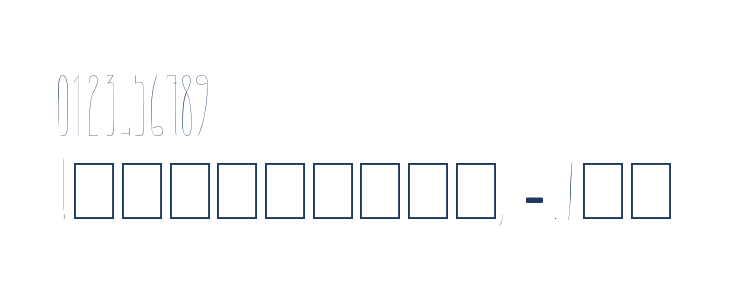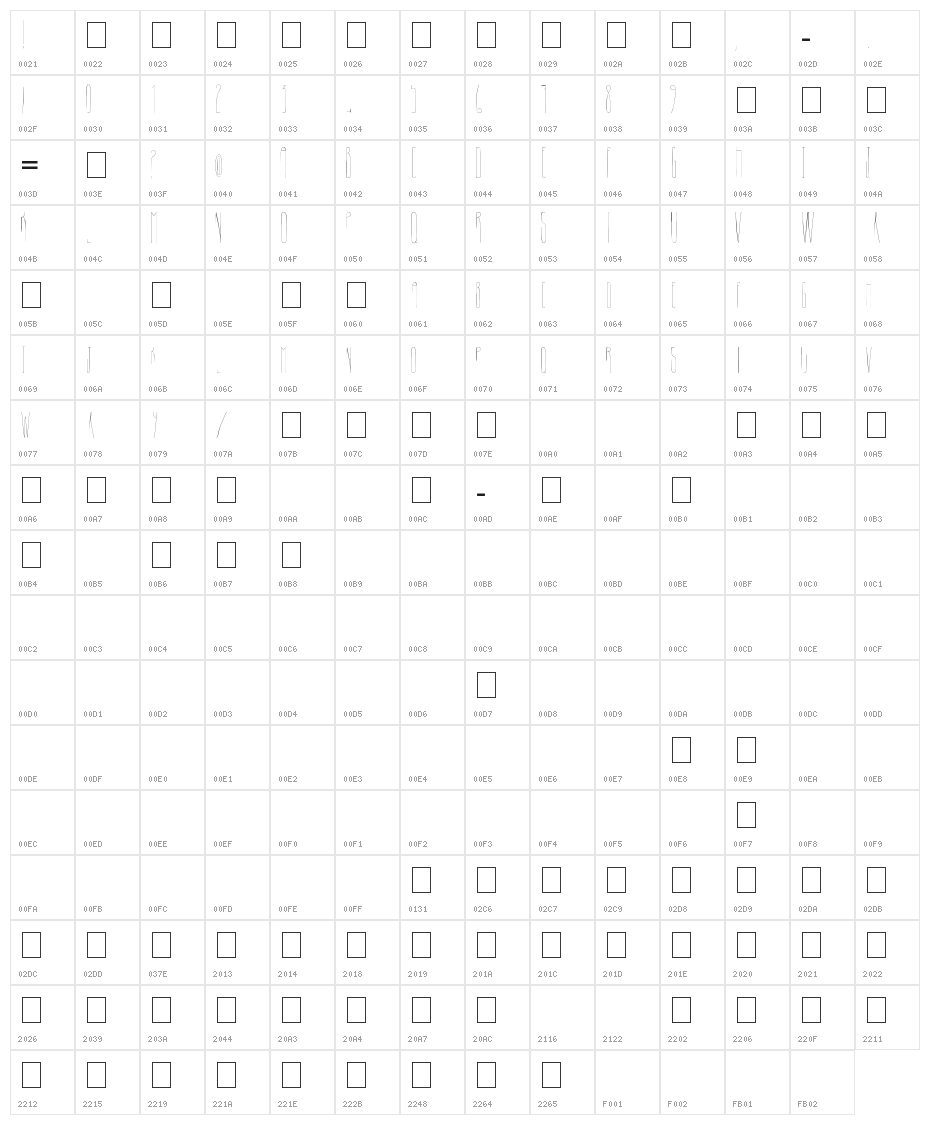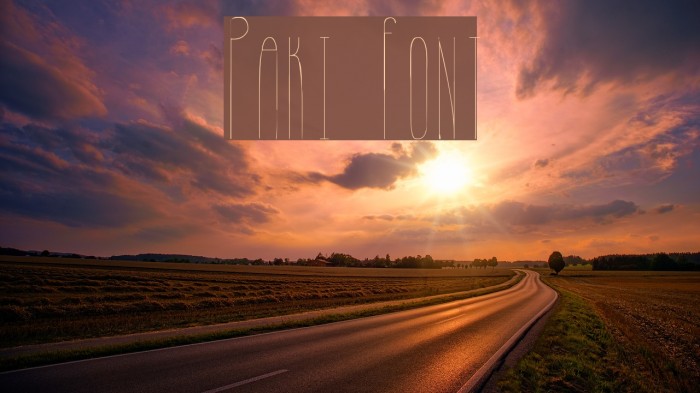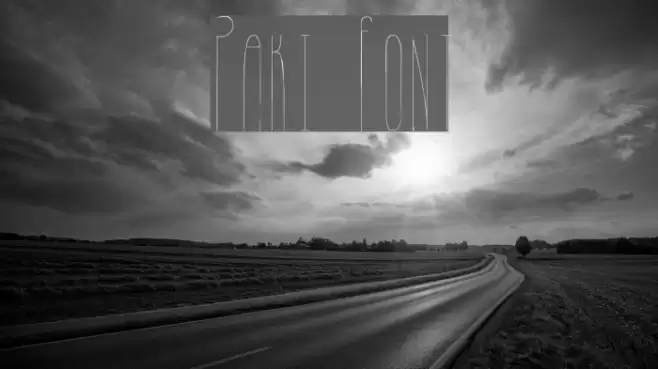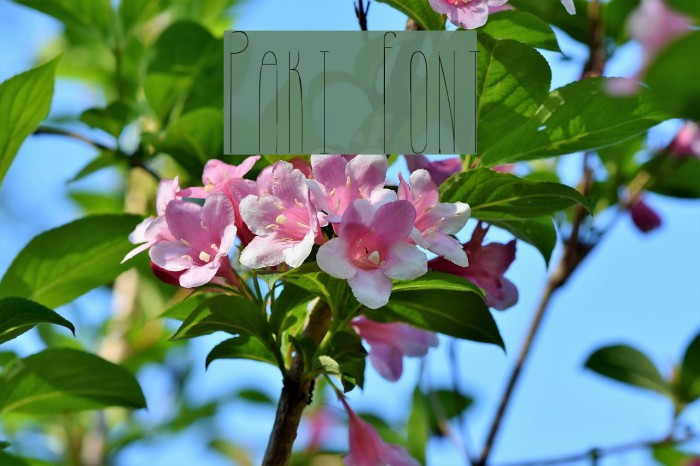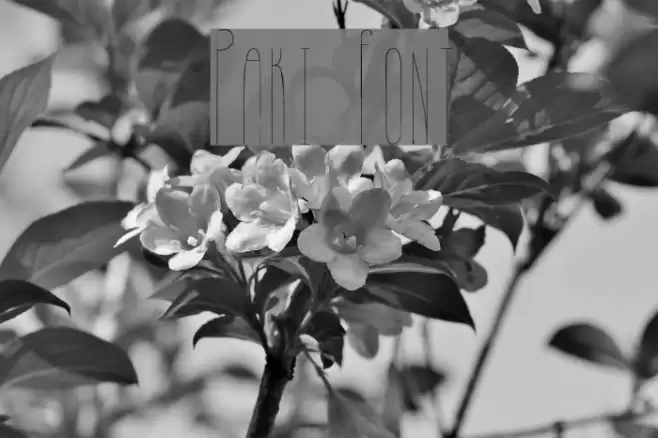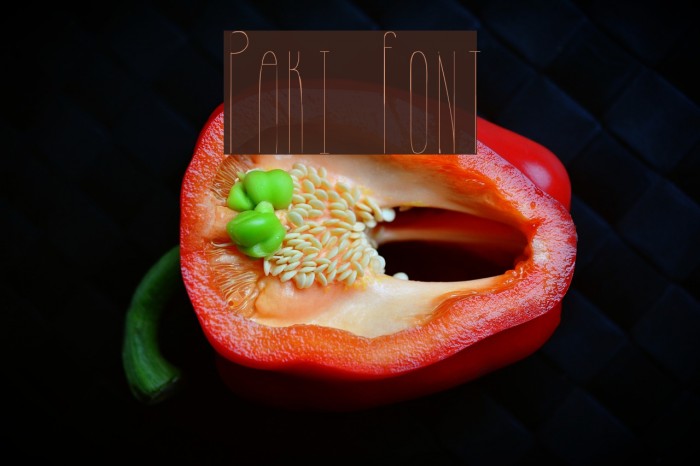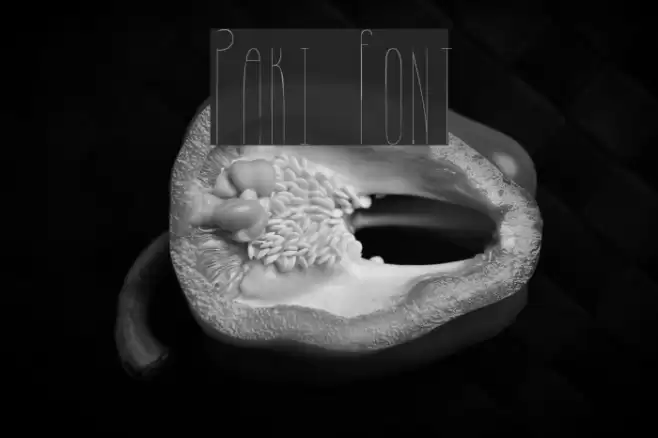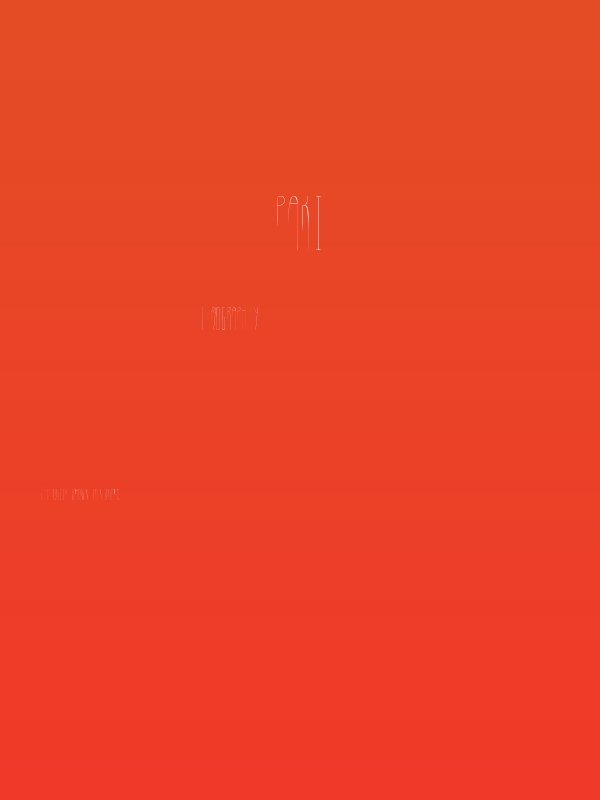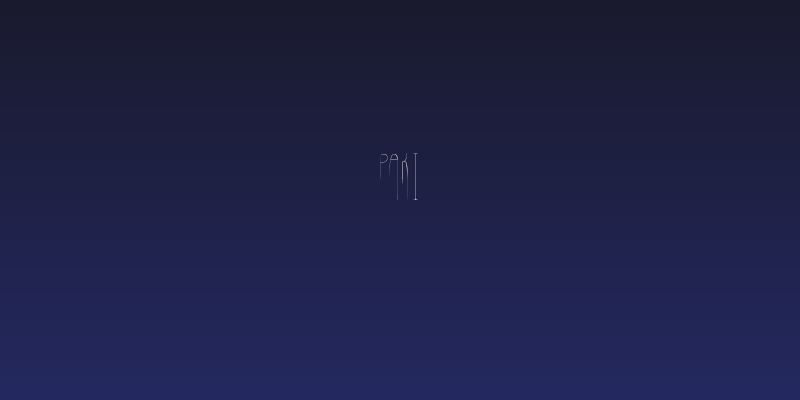
Paki Font
Paki Description
This font features an ultra-thin and elongated design, characterized by its tall and narrow letterforms. The strokes are consistently thin, giving it a sleek and modern appearance. The uppercase letters are particularly elongated, creating a sense of elegance and sophistication. The lowercase letters maintain the same thinness, ensuring a cohesive look throughout. Numbers follow the same style, with a uniform height that complements the alphabet. The special characters are minimalistic, aligning with the overall aesthetic. This font's unique style makes it stand out, ideal for projects that require a touch of modernity and elegance.
| Proposed Projects | Ideal for fashion magazines, luxury branding, modern art posters, and minimalist design projects. |